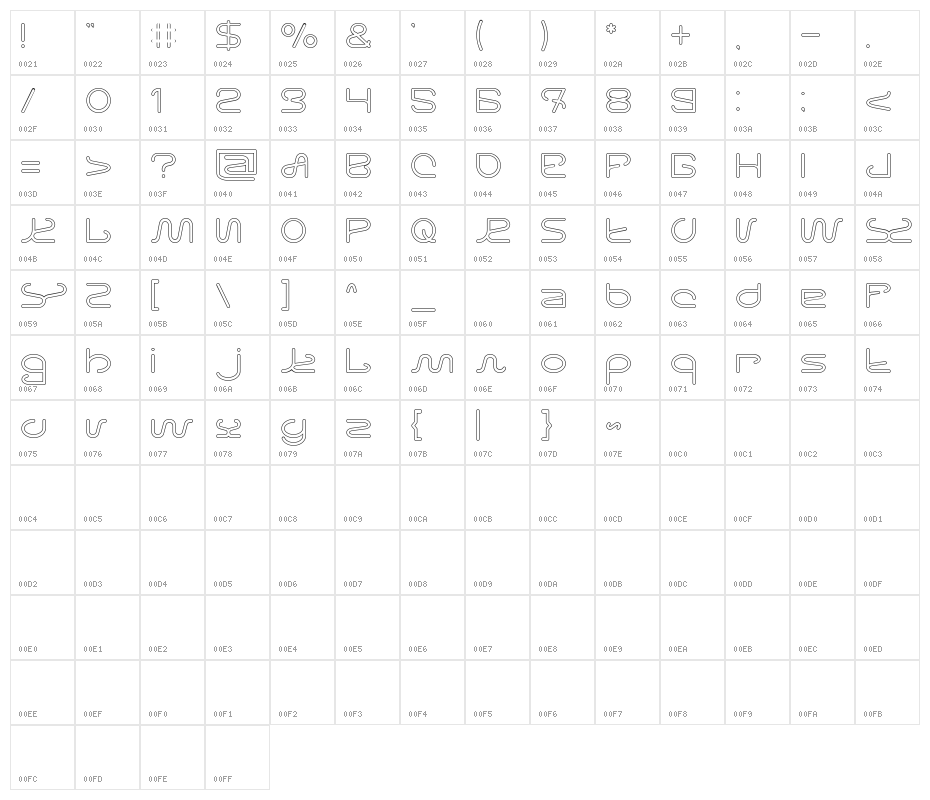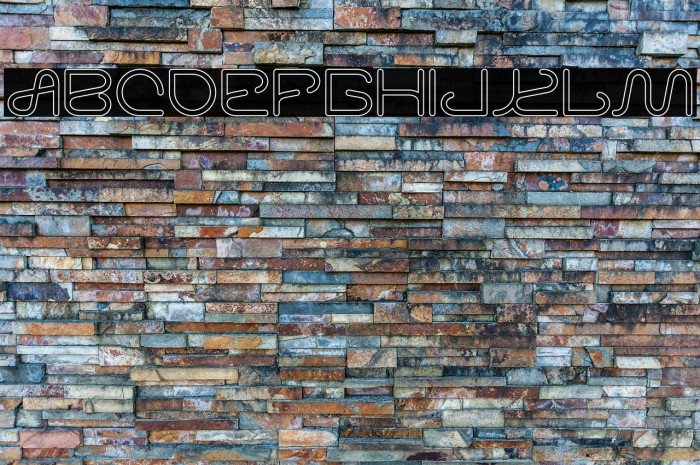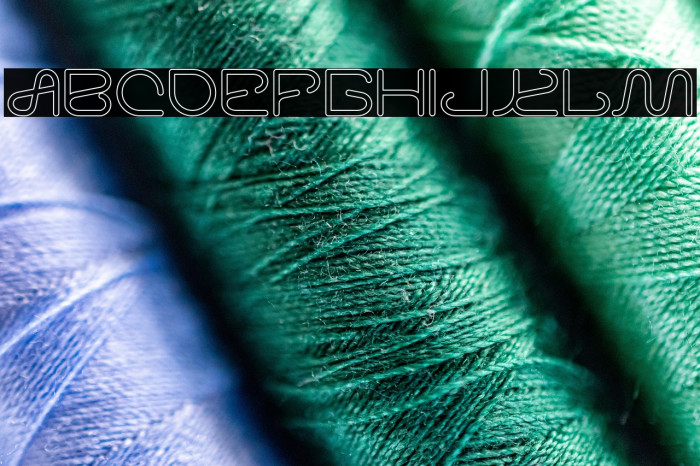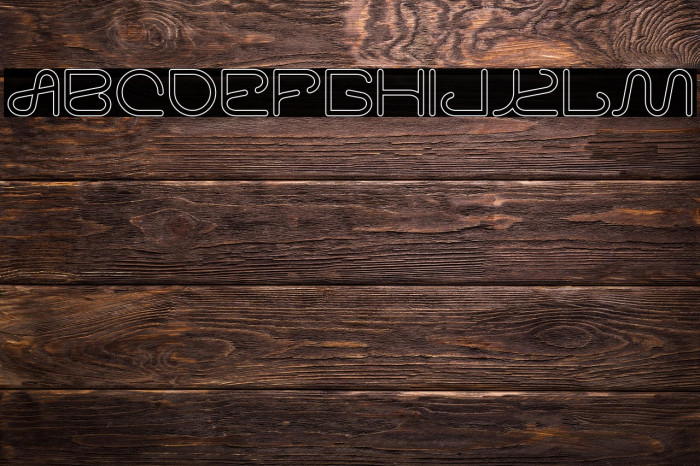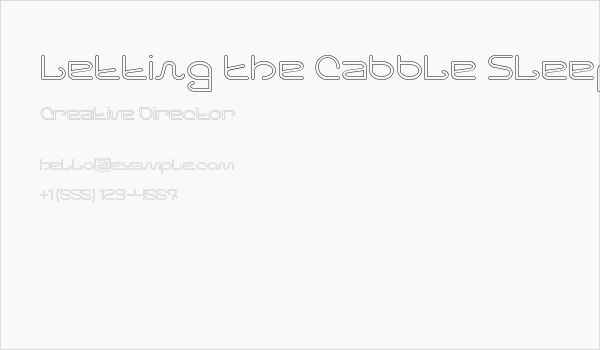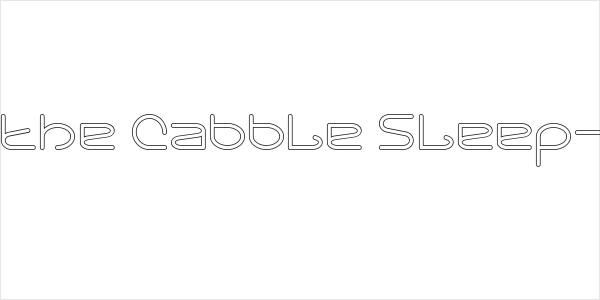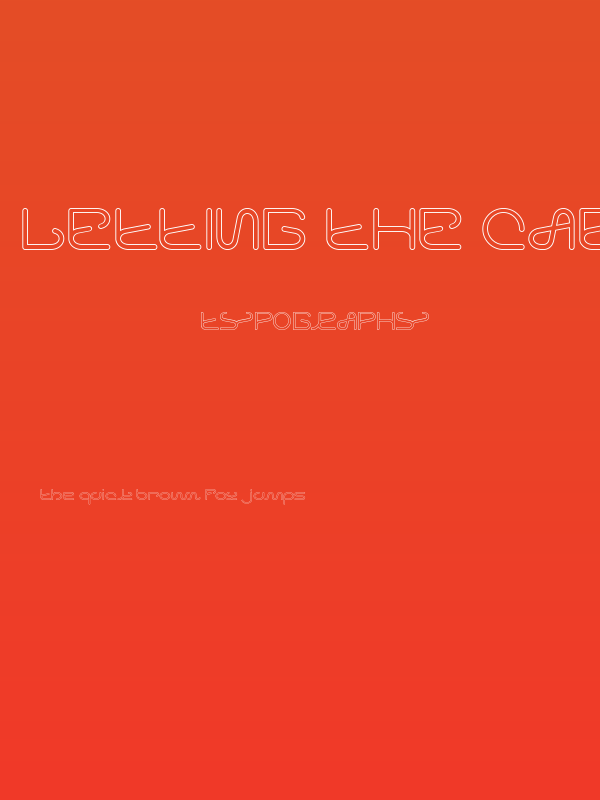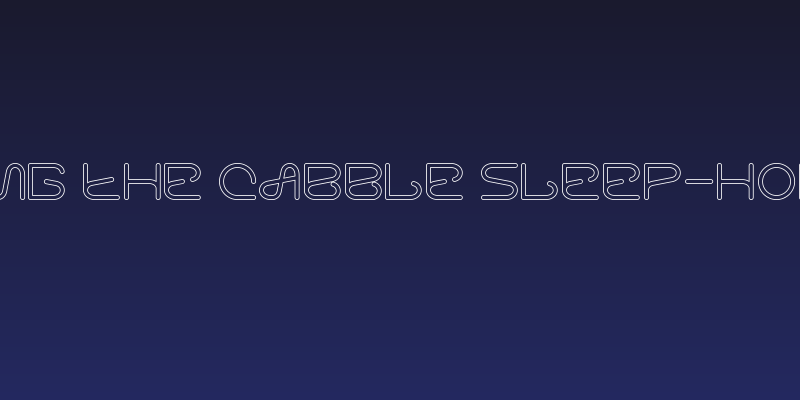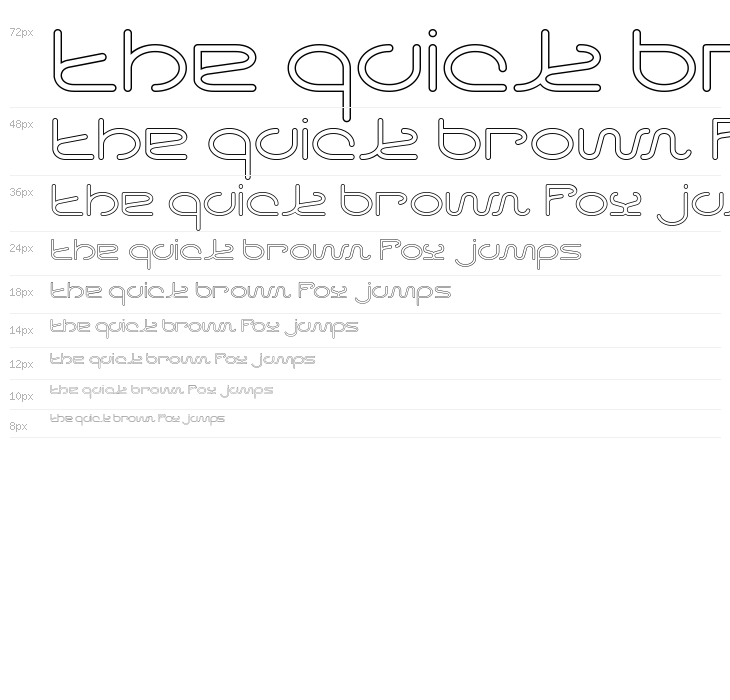
Letting The Cabble Sleep-Hollow Font
Letting The Cabble Sleep-Hollow Description
This font features a unique, futuristic design with a hollow, outlined structure. The characters are composed of smooth, continuous lines that create a sense of fluidity and motion. The uppercase and lowercase letters maintain a consistent style, with rounded edges and a playful, yet modern aesthetic. The numbers and special characters follow the same design principles, ensuring a cohesive look across all elements. This font is particularly eye-catching due to its unconventional and artistic approach, making it stand out in any design project.
Use CaseLogos, Posters, Headlines
Proposed ProjectsIdeal for sci-fi themed projects, modern art posters, digital media, and creative branding.